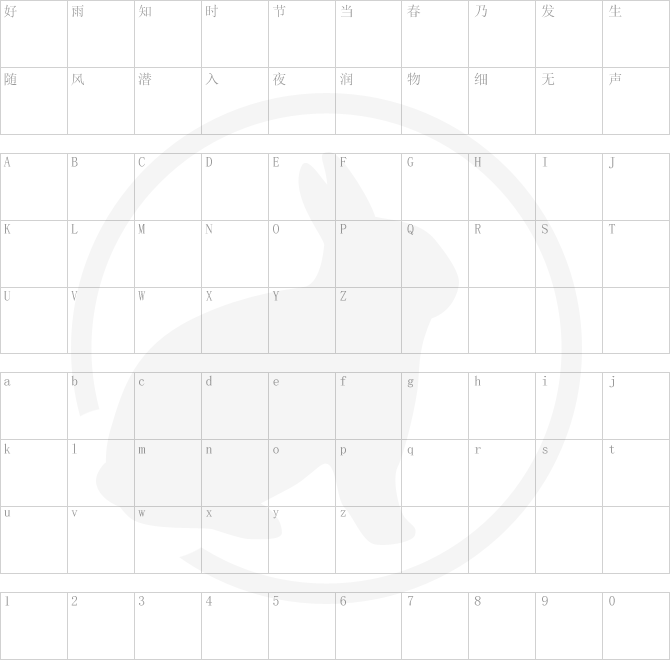
- Font Name:YDIYGO130-KSCpc-EUC-H
YDIYGO130-KSCpc-EUC-H-copy-3-.ttf is a very beautiful artistic font, YDIYGO130-KSCpc-EUC-H-copy-3-.ttf is widely used in the design and printing of various books and pictures,YDIYGO130-KSCpc-EUC-H-copy-3-.ttf has a strong visual impact,YDIYGO130-KSCpc-EUC-H-copy-3-.ttf is a commonly used font in newspapers, magazines and books, and is used in posters, e-commerce Poster design, store design, logo design, font design and other fields.YDIYGO130-KSCpc-EUC-H-copy-3-.